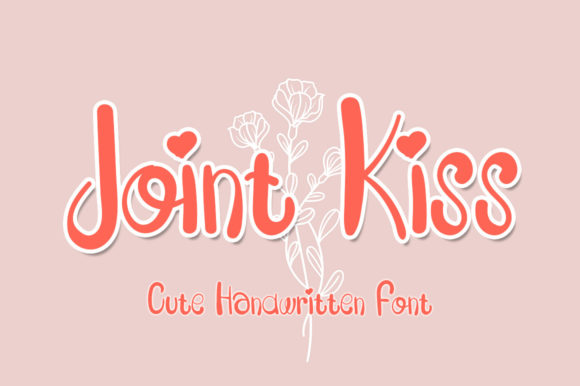
Introducing Joint Kiss Font, the enchanting display font that will ignite your creativity and add a touch of love to all your written wonders. Dive into a world of romance and grace with this captivating font, perfectly tailored to elevate your delicate projects to new heights of charm and allure.
With Joint Kiss Font, your wedding invitations will radiate elegance, transforming them into cherished mementos of love. Birthday cards will burst with warmth and heartfelt wishes, making each celebration a truly unforgettable experience. Thank you notes will shimmer with appreciation, conveying gratitude with a touch of whimsy.
Joint Kiss Font is more than just a collection of letters; it's an invitation to embark on a creative journey. Its romantic curves and playful spirit will inspire you to craft messages that captivate hearts and leave a lasting impression. Unleash your inner artist and let Joint Kiss Font guide you towards creating breathtaking designs that will ignite imaginations and spread joy.
Don't settle for ordinary fonts that fade into the background. Embrace the enchanting power of Joint Kiss Font and watch as your words dance with delight upon the page. Its versatility knows no bounds, making it the perfect choice for a wide range of projects that demand a touch of romance and whimsy.
Step into the world of Joint Kiss Font today and discover the endless possibilities it holds for your creative endeavors. Let your imagination soar and create masterpieces that will be cherished for years to come.